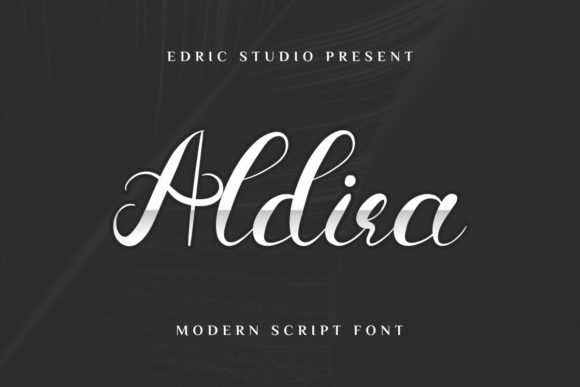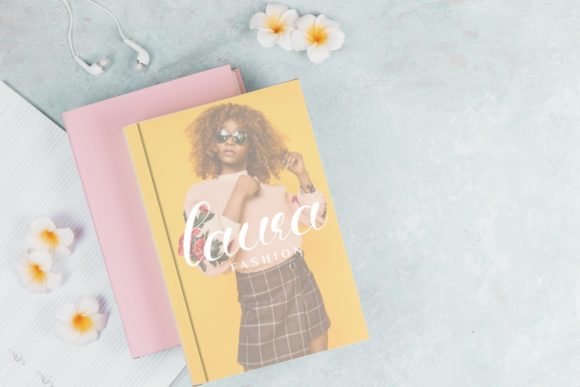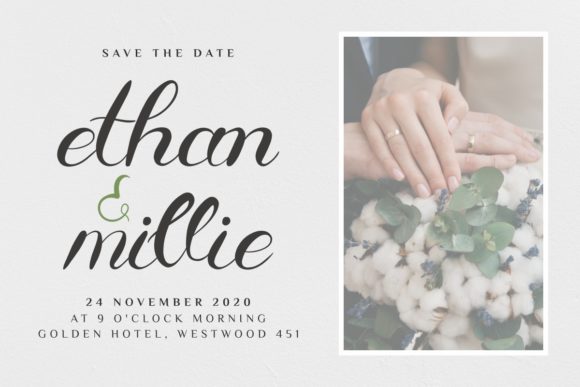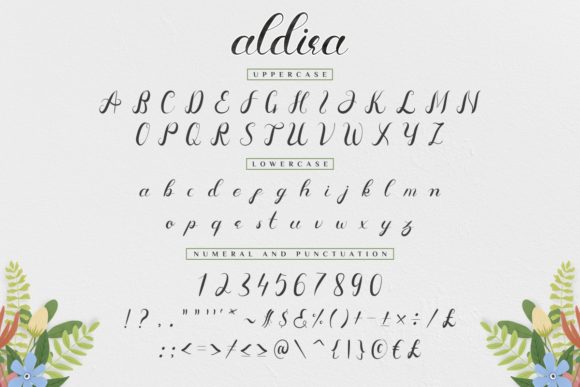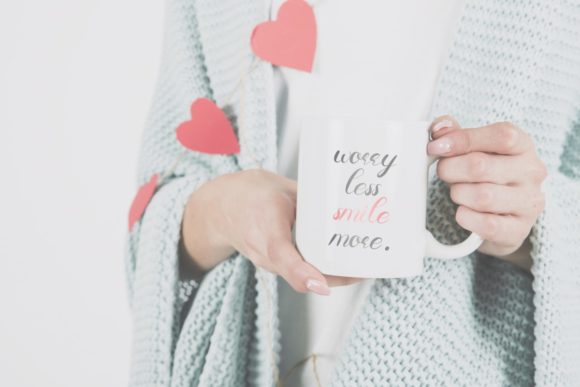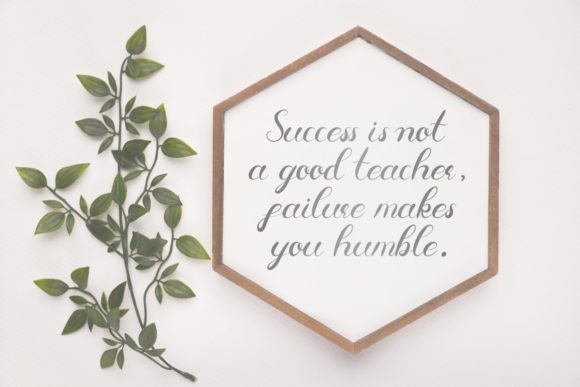
A Delicate Touch: Unveiling the Elegance of Aldira Font
There’s something magical about the moment when a design comes together – the perfect combination of color, texture, and typography that transports you to a world of beauty and wonder. For designers, this feeling is a constant pursuit, and it’s exactly what the Aldira Font is designed to evoke.
Created with the help of a stunning brush pen, the Aldira Font is an elegant and delicate handwritten font that is as versatile as it is stunning. Whether you’re working on a wedding invitation, a luxury brand’s marketing materials, or a personal project, this font is sure to add a touch of sophistication and whimsy to your designs.
What makes the Aldira Font truly valuable for designers is its ability to convey emotion and personality, making it an essential tool for any creative looking to add a unique touch to their work.
Aldira Font Key Features
- Font Family: Aldira is a script font family with 2 weights: Regular and Bold.
- Unique Characteristics: Aldira features elegant, cursive lines and swashes, making it ideal for creative and artistic projects.
Aldira Font Review
As a designer, I was excited to dive into the Aldira Font and see what it had to offer. ✨ One of the things that stands out is its unique and elegant style. The font is a great blend of modern and classic elements, making it perfect for a wide range of designs, from editorial to branding.
The Aldira Font also comes in a variety of weights, from light to bold, giving designers plenty of options to work with. ✨ Additionally, the font is highly legible, making it a great choice for body text or headlines.
While the Aldira Font is a solid choice, there are a few limitations to consider:
- ⚠️ The font may not be as suitable for display-heavy designs, as it can look a bit cluttered with too much text.
- ⚠️ The font’s versatility can also make it feel a bit generic, lacking a unique personality.
- ⚠️ Some users may find the font’s style a bit too safe or unadventurous.
Overall, the Aldira Font is a solid choice for designers looking for a versatile and elegant font. While it may not be the most exciting option, it’s a reliable choice that’s sure to deliver results.
Aldira font is best suited for elegant, high-end designs. Use it for wedding invitations, luxury product packaging, or upscale branding. To get the most out of it, pair Aldira with high-quality images and minimal backgrounds. Experiment with different font sizes and styles to create a unique visual hierarchy.
Alternatives to Aldira Font for Designers
Playfair Display is an elegant, high-end serif font suitable for luxury branding, high-end magazines, and fine art. It is perfect for designers who want to create a sophisticated and refined look. Unlike Aldira Font, Playfair Display has a more classic and traditional feel, with intricate details and ornate flourishes.
Pacifico is a beautiful, cursive script font ideal for creative and artistic projects, such as invitations, menus, and signage. It is perfect for designers who want to add a touch of elegance and sophistication to their designs. Unlike Aldira Font, Pacifico has a more relaxed and casual feel, with a soft, handwritten quality.
Great Vibes is a modern, elegant script font suitable for fashion branding, beauty products, and luxury goods. It is perfect for designers who want to create a sense of sophistication and glamour. Unlike Aldira Font, Great Vibes has a more contemporary feel, with a flowing, handwritten quality and a touch of whimsy.
Q: What is the recommended font size for optimal readability with the Aldira Font?
The recommended font size for optimal readability with the Aldira Font is between 12 and 14 points. However, this may vary depending on the specific application, screen resolution, and viewing distance. It’s always a good idea to test the font at different sizes to ensure optimal legibility.